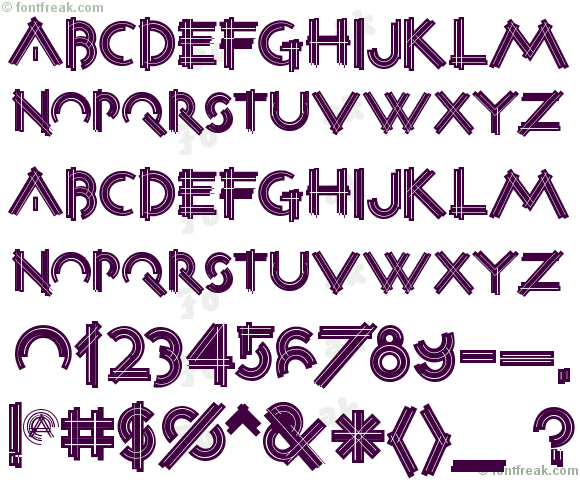
ConstrxiaBlackInline
About ConstrxiaBlackInline
ConstrxiaBlackInline by Manfred Klein is a striking display font that captivates with its unique visual aesthetic. This font falls into the decorative category, characterized by its bold inline strokes that create a dynamic contrast against the negative space. The stroke weight is substantial, yet it maintains a sense of elegance through its geometric forms and intricate detailing. The spacing between the letters is balanced, allowing for readability while enhancing visual appeal.
This font is particularly well-suited for a variety of creative applications. It shines in contexts such as movie posters, where its bold presence can draw attention and convey a sense of excitement. Additionally, ConstrxiaBlackInline can elevate restaurant menus, providing a modern twist that enhances the dining experience. It is also an excellent choice for branding materials, where businesses can leverage its distinctive style to create memorable logos. Furthermore, graphic designers will find it ideal for promotional materials, as it can effectively capture the essence of a brand or event.
The target audience for ConstrxiaBlackInline includes graphic designers, small business owners, and content creators who are looking for a font that stands out. It provides an opportunity to make a strong visual statement, drawing in potential customers and clients. The free availability of this font means that anyone can incorporate its unique characteristics into their projects without financial constraints.
Overall, ConstrxiaBlackInline font free download offers a fresh and contemporary option for those in pursuit of distinctive typography. Its combination of boldness, elegance, and versatility makes it a standout choice for various design needs, ensuring that it will leave a lasting impression. Whether you're creating eye-catching visuals or enhancing your brand, this font is sure to elevate your work to new heights.